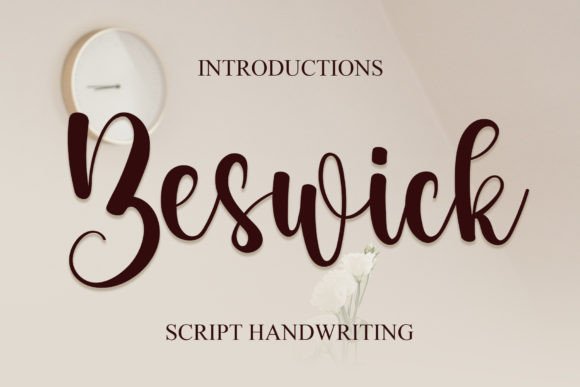
The Beswick Font: A Stylish and Modern Handwritten Delight
I’ll never forget the design moment when I stumbled upon the Beswick font. I was working on a project for a client who needed a custom greeting card design. I had spent hours browsing through font libraries, but nothing seemed quite right. That was until I discovered Beswick – a stylish and modern handwritten font that instantly elevated my design. In this article, I’ll share my experience with Beswick, its features, and how to make the most of it in your designs.
An Honest Review of Beswick Font
As a designer, I’m always on the lookout for fonts that can bring a unique touch to my projects. Here’s what I love about Beswick:
- ✨ Stylish and modern look: Beswick has a fresh and contemporary feel that’s perfect for a wide range of applications, from greeting cards to headlines, branding, and packaging.
- 💕 Emotional connection: Beswick has a way of adding a happiness touch to your designs, making it perfect for projects that require a personal and emotional connection.
While Beswick is an excellent font, there are a few small quirks to be aware of:
- 🤔 Limited use in formal contexts: Beswick’s handwritten nature makes it less suitable for formal or professional contexts, such as academic papers or business reports.
The Story Behind Beswick Font
Beswick was designed by a talented type designer who wanted to create a font that would bring a touch of happiness and personality to designs. Inspired by the beauty of handwritten script, Beswick was crafted to be both stylish and modern, with a unique character that sets it apart from other fonts. While the designer’s story is shrouded in mystery, their passion for creating a font that would make designers smile is evident in every glyph.
| What is the Beswick font best used for? | Beswick is a versatile font suitable for a wide range of applications, including greeting cards, headlines, branding, packaging, and more. |
| Does Beswick support OpenType features? | Yes, Beswick supports OpenType features, including glyphs, ligatures, and stylistic alternates. |